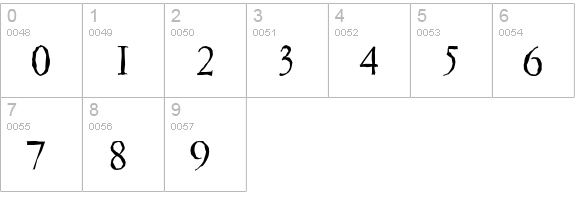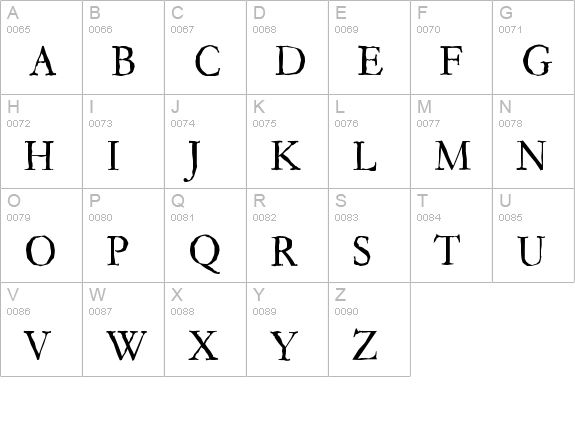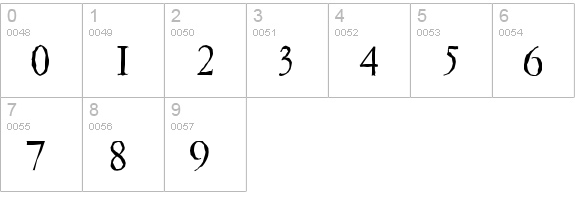
GarfeldAntique-Light Font Details
GarfeldAntique-Light is a refined, elegant variant in the GarfeldAntique typeface family \xE2\x80\x94 well suited to elegant body text, refined sub-headings, and luxury branding.
GarfeldAntique-Light is a classic and elegant font that exudes a vintage charm and sophistication. With its delicate serifs and graceful curves, this typeface is perfect for adding a touch of old-world charm to your designs. Whether you're working on invitations, branding, or editorial projects, GarfeldAntique-Light will bring a timeless elegance to your work. What sets GarfeldAntique-Light apart is not only its stunning design but also the fact that it is available for free download at FontsMarket.com. This means you can add this beautiful font to your collection without any cost, making it a valuable asset for any designer or creative enthusiast. Embrace the beauty of GarfeldAntique-Light and elevate your projects with its classic appeal.